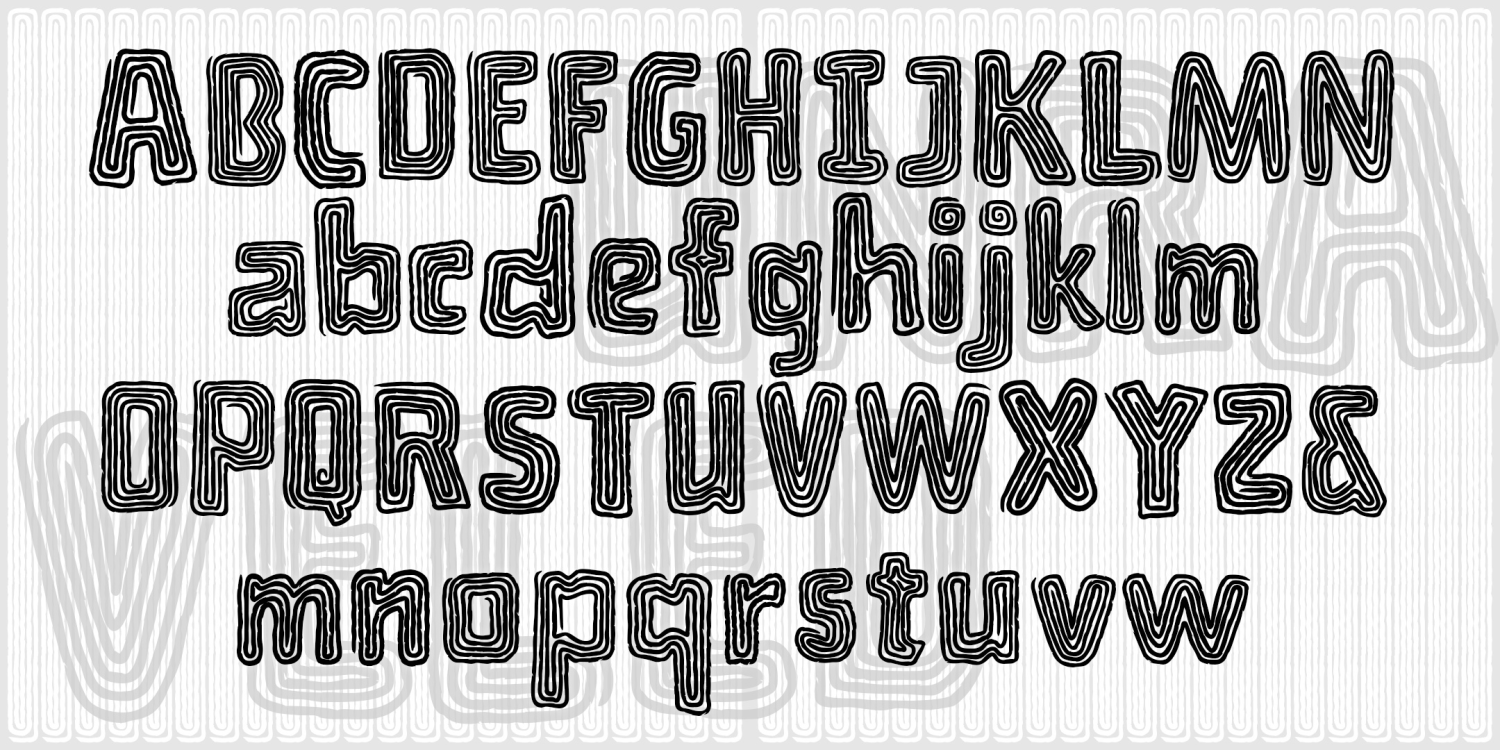
Unraveled
About Unraveled
UNRAVELED is a fun font that looks like a craft project made with yarn or string. Each letter is a single fuzzy line wound round and round. Perfect for color and layering. Unraveled was inspired by the hand-lettered titles of Roger Corman’s 1959…